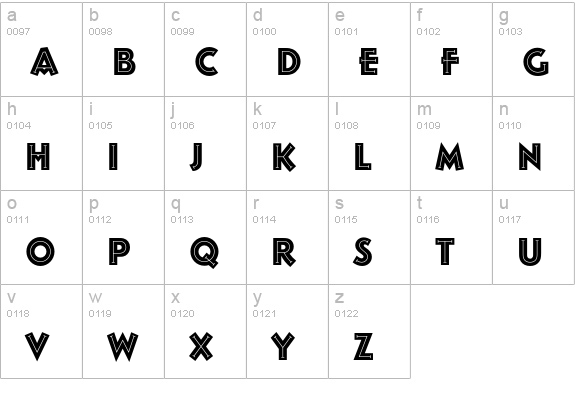
Follies Std font is a whimsical and playful typeface that exudes a sense of fun and creativity. Its quirky design features exaggerated and irregular letterforms that add a unique touch to any project. This font is perfect for projects that require a lighthearted and artistic feel, such as invitations, posters, and branding materials. What's even better is that Follies Std font is completely free to download at FontsMarket.com. This means you can add a touch of whimsy to your designs without any cost. So go ahead and give your projects a fun and creative twist with Follies Std font today!